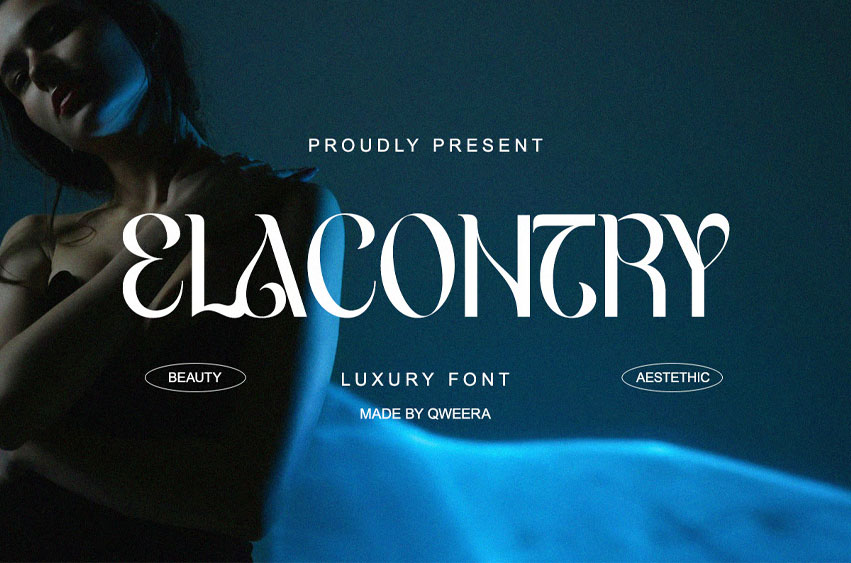
Elacontry Font
Elacontry Font is a graceful decorative serif font that blends bold modern luxury with unique character shapes and high-contrast details.
Designed for aesthetic appeal and feminine strength, Elacontry is the perfect font for upscale branding, fashion editorials, cosmetic packaging, and artistic logo designs. Each letterform is infused with classy sophistication and edgy finesse to bring visual impact and memorability to your work.
A flawless choice for creators who demand beauty, luxury, and contemporary charm in one serif font.
• Uppercase & lowercase letters
• Regular & Italc
• Numerals & punctuation
• Alternates & custom ligatures
• Beauty and cosmetic branding
• Luxury fashion identity
• Wedding invitations
• Editorial layouts and magazine titles
• Classy logo design
• Trendy social media posts
Elacontry gives your design presence that turns heads and defines prestige.